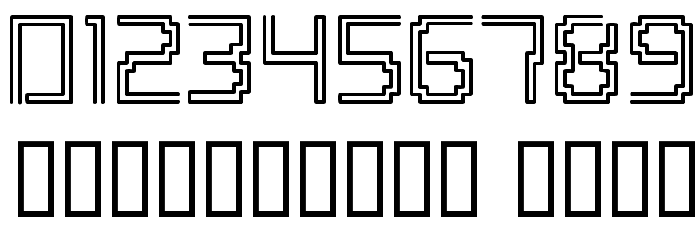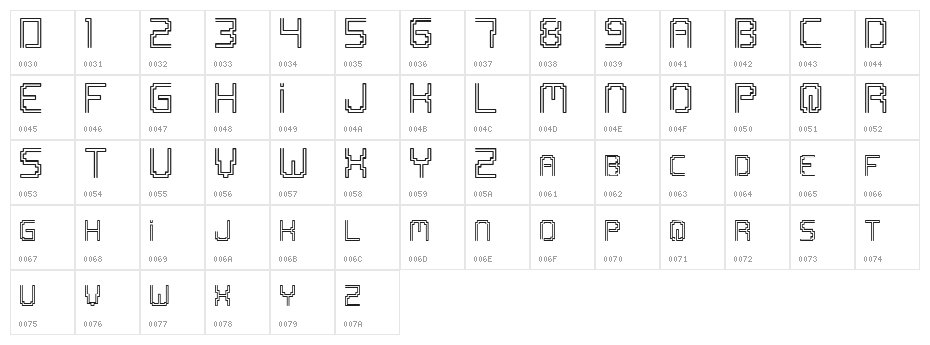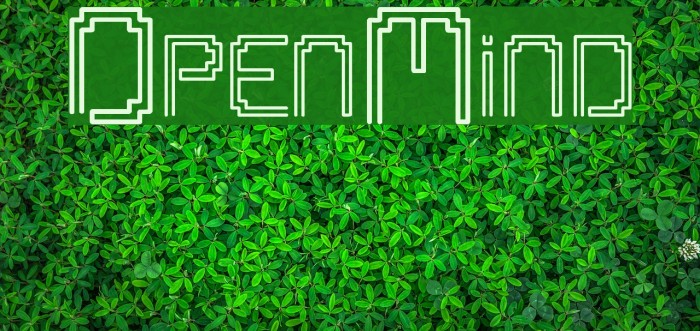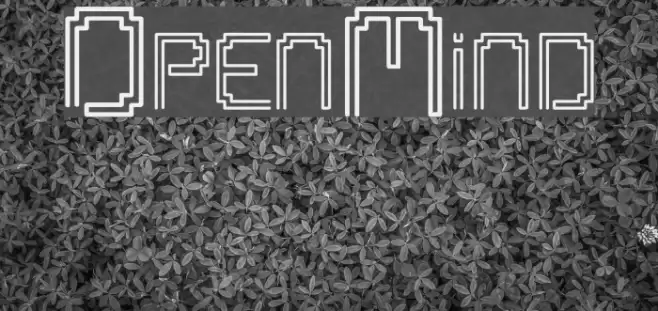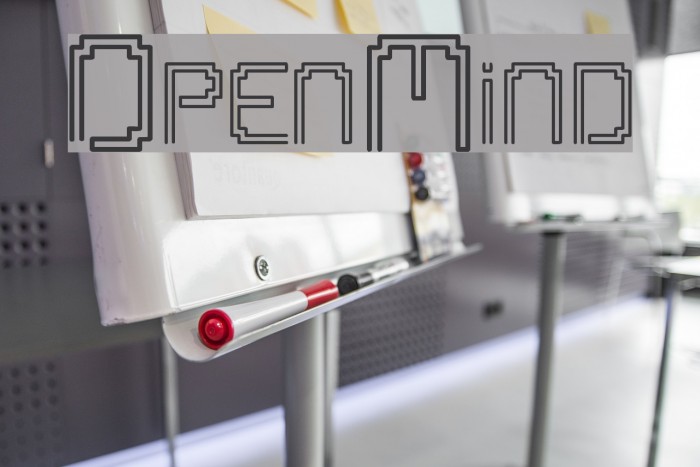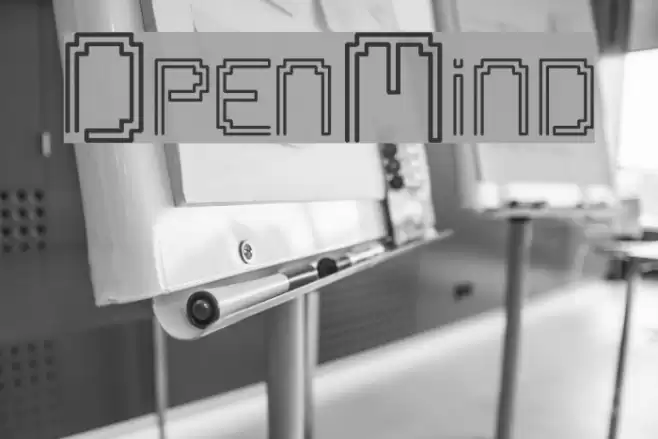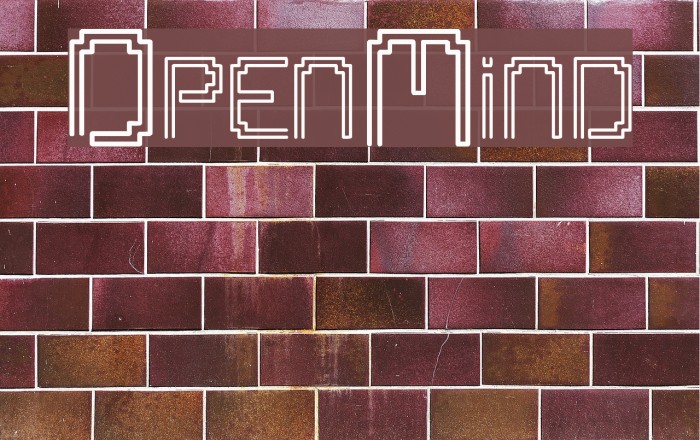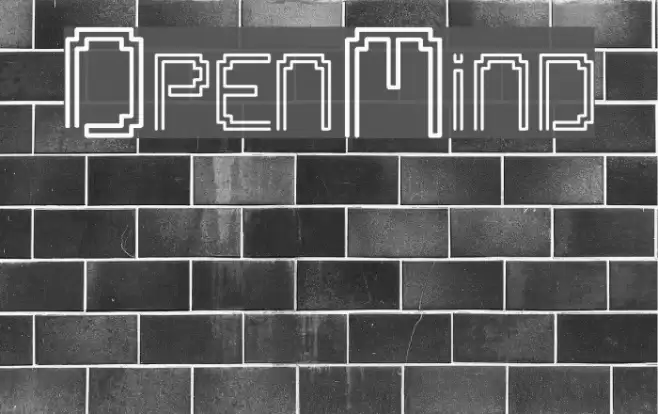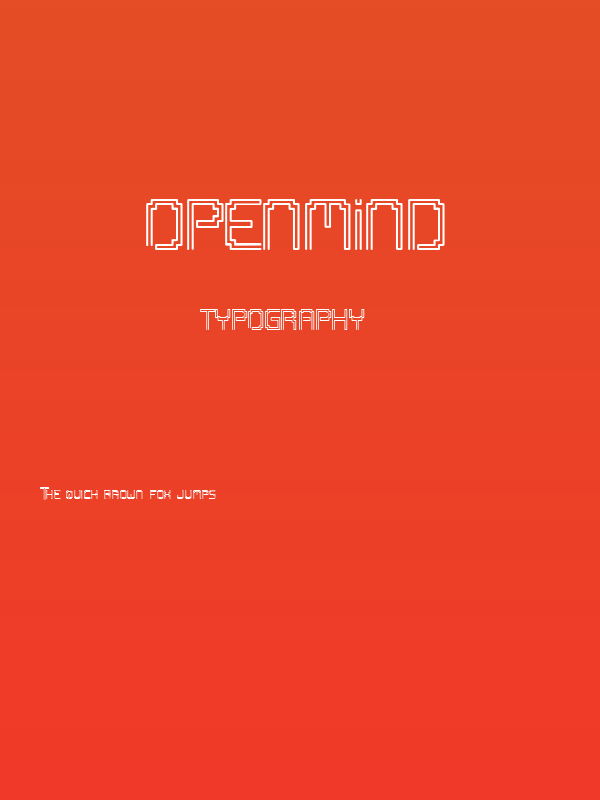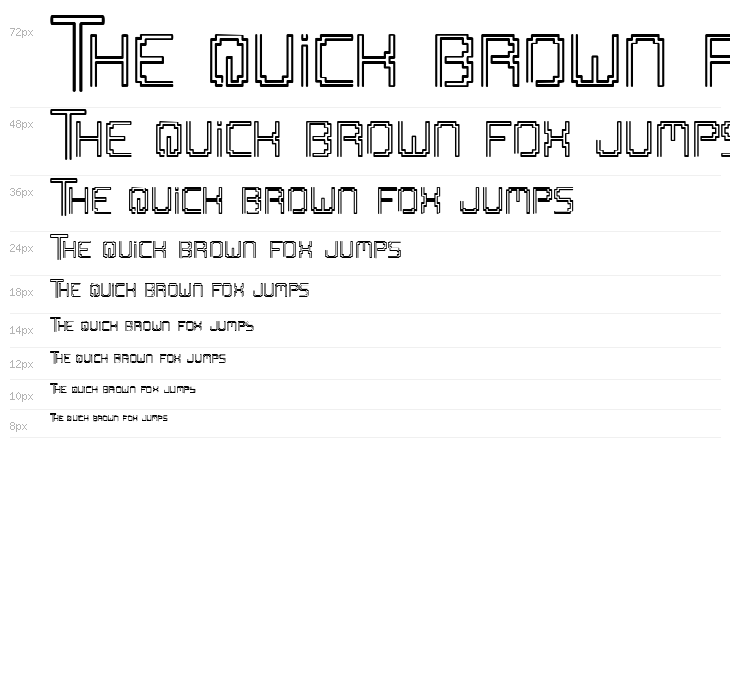
OpenMind Font
OpenMind Description
This font features a unique, pixelated design that mimics the appearance of digital or retro video game text. Each character is composed of blocky, angular lines that create a distinct, futuristic aesthetic. The uppercase and lowercase letters maintain a consistent style, with sharp edges and a uniform height, giving the font a cohesive look. The numerals and special characters follow the same design principles, ensuring visual harmony across all glyphs. This font's geometric nature makes it stand out, offering a bold and eye-catching appearance that is both modern and nostalgic.
| Proposed Projects | Ideal for video game design, tech-themed posters, digital art projects, and retro-style branding. |